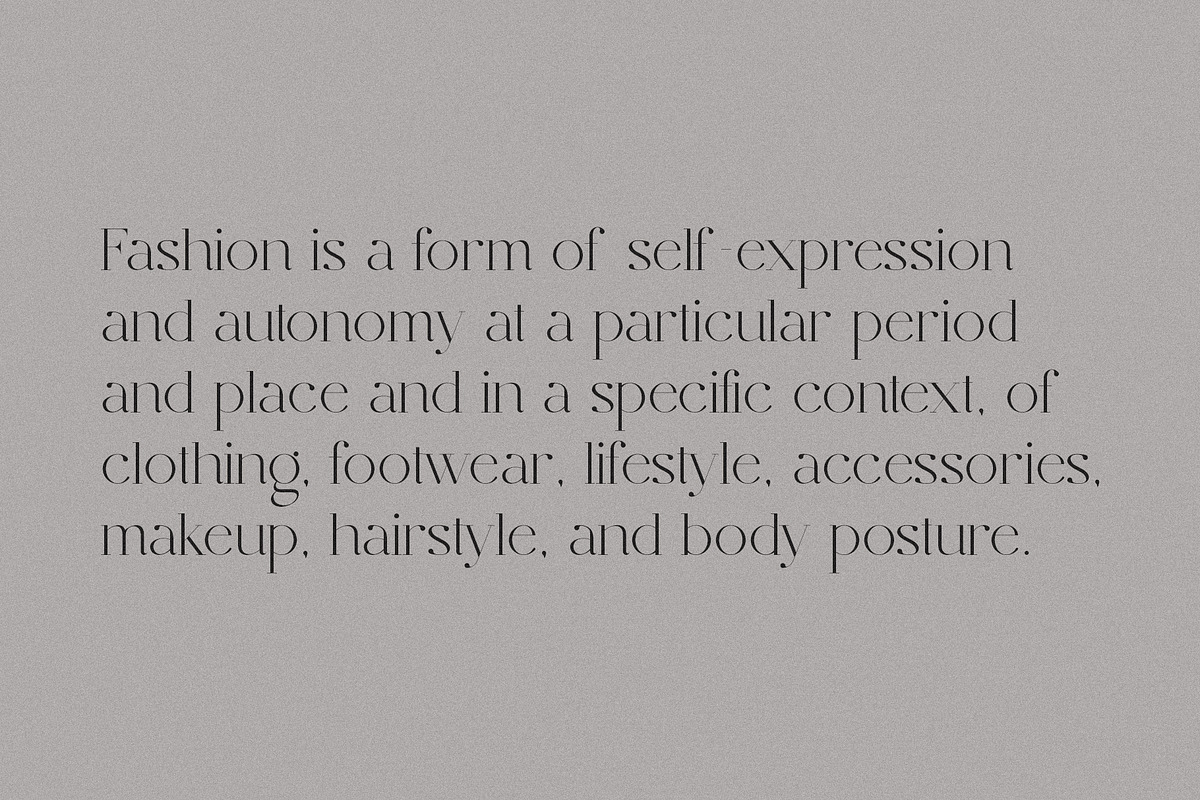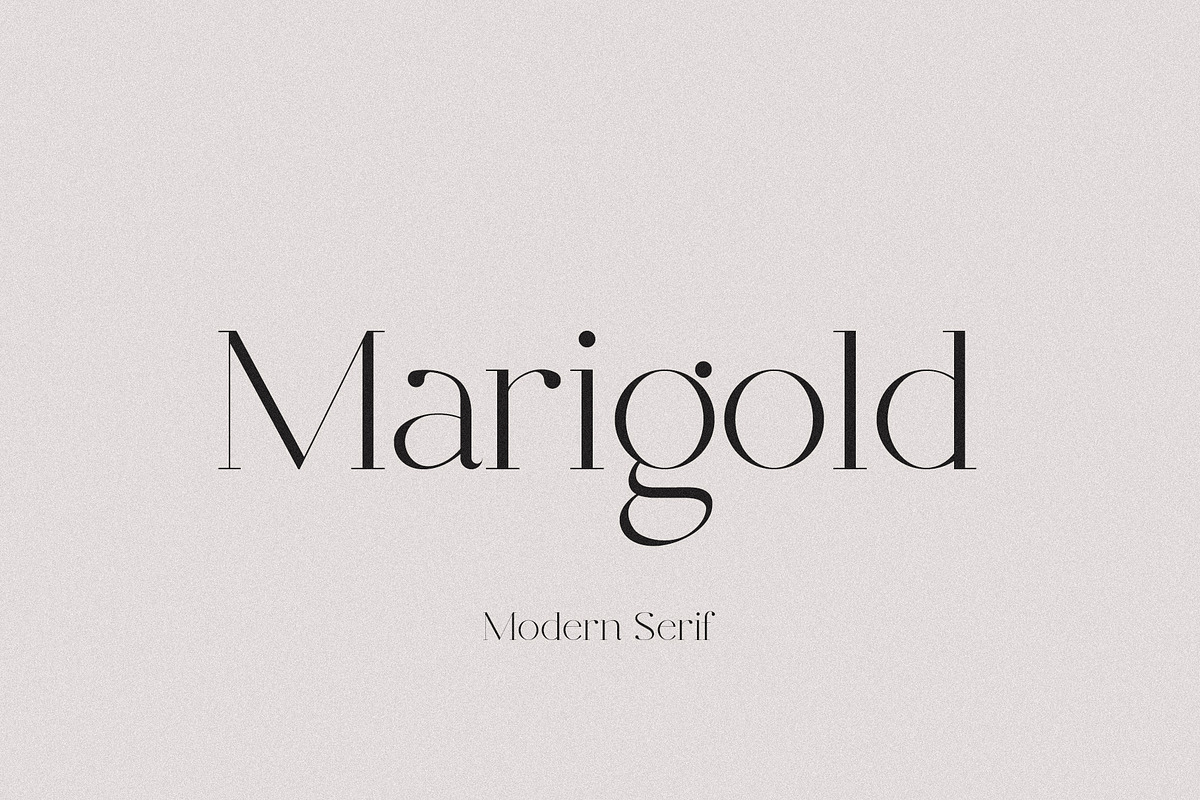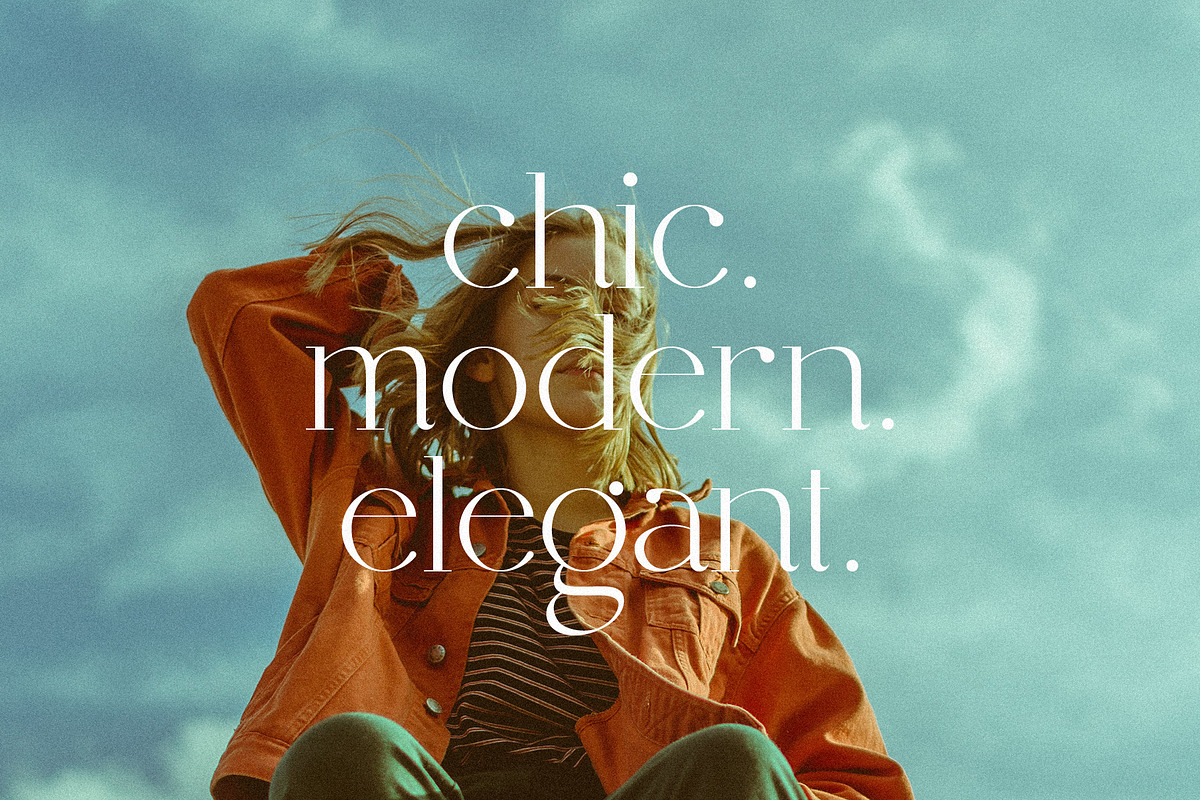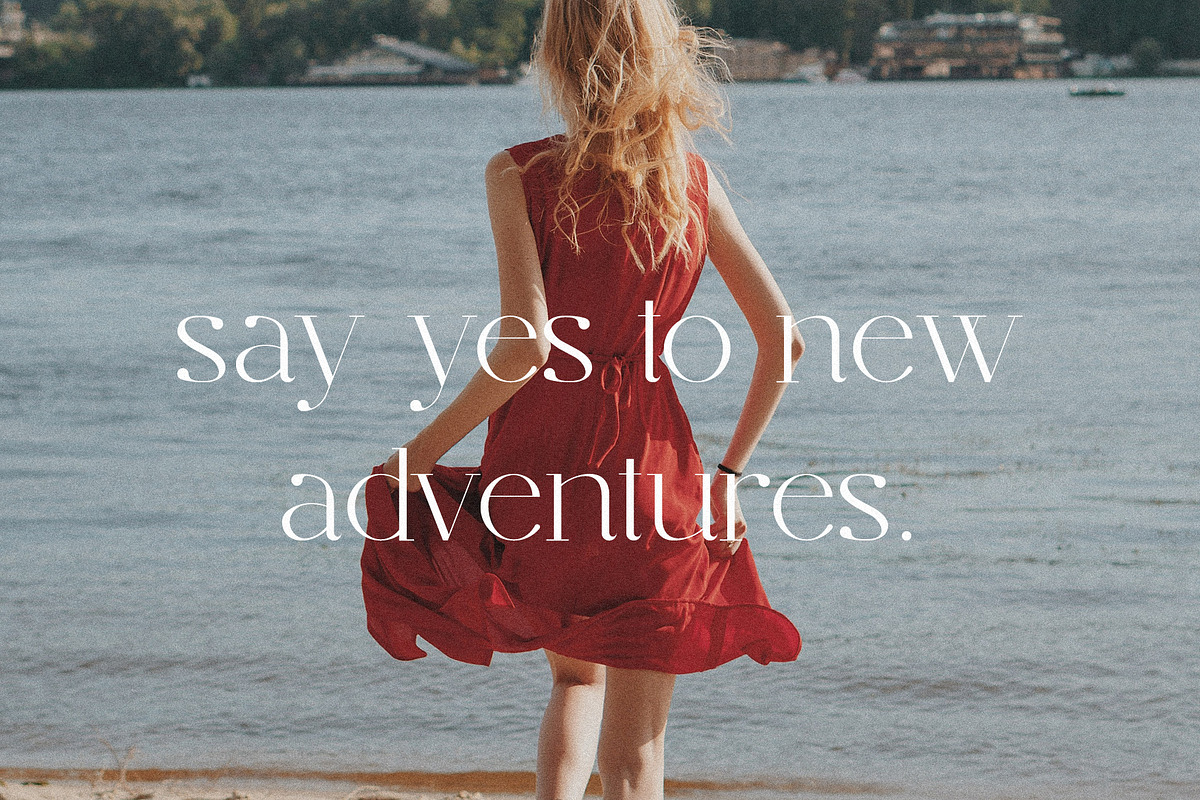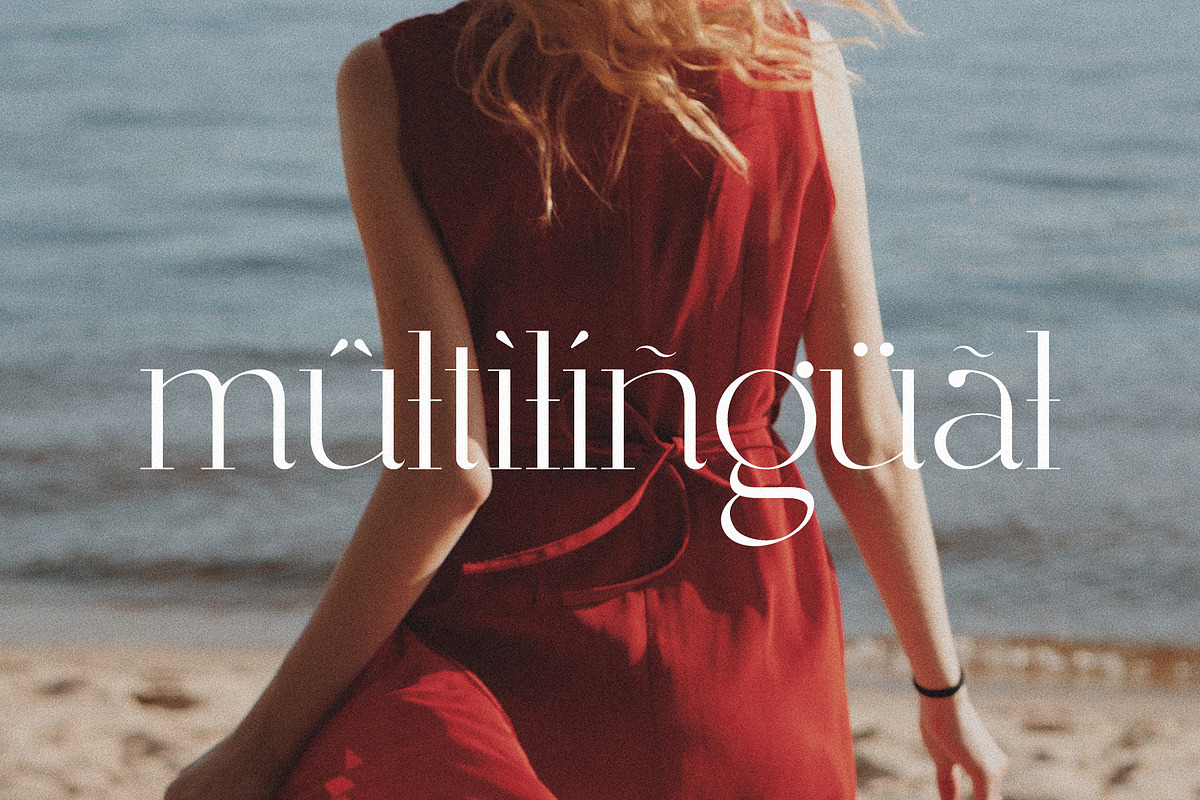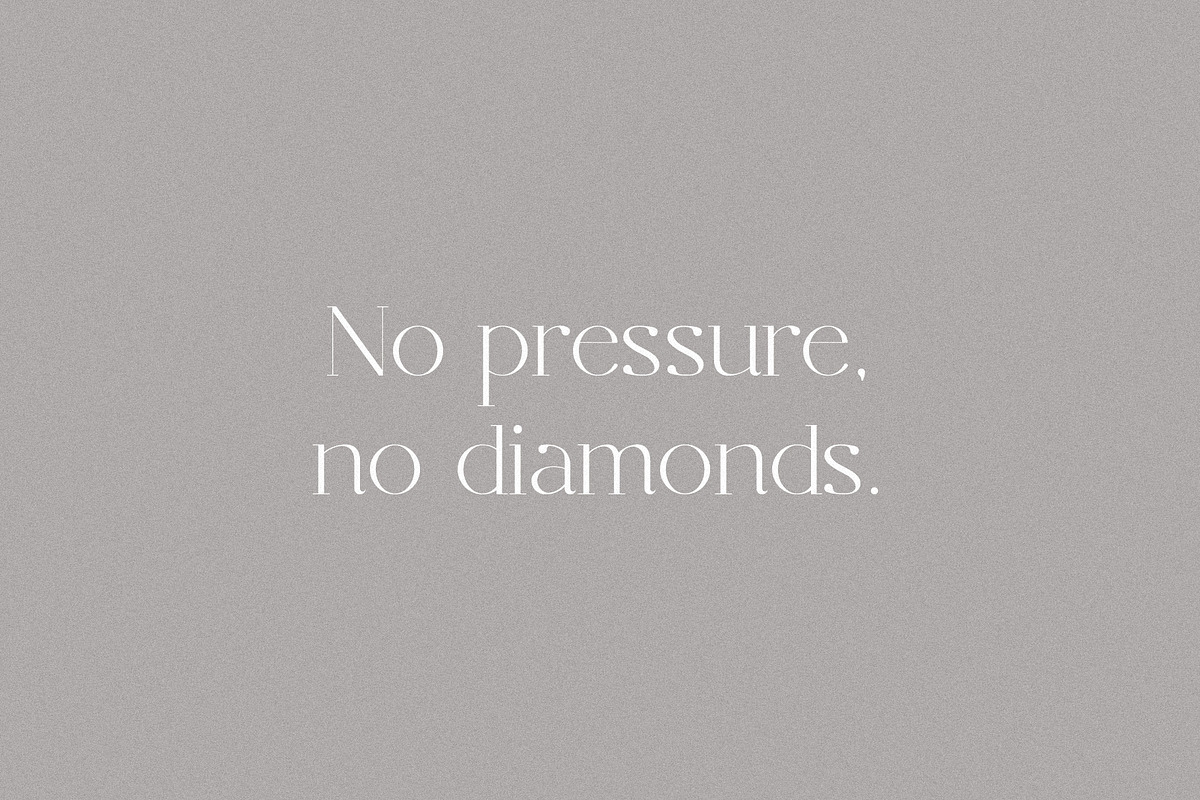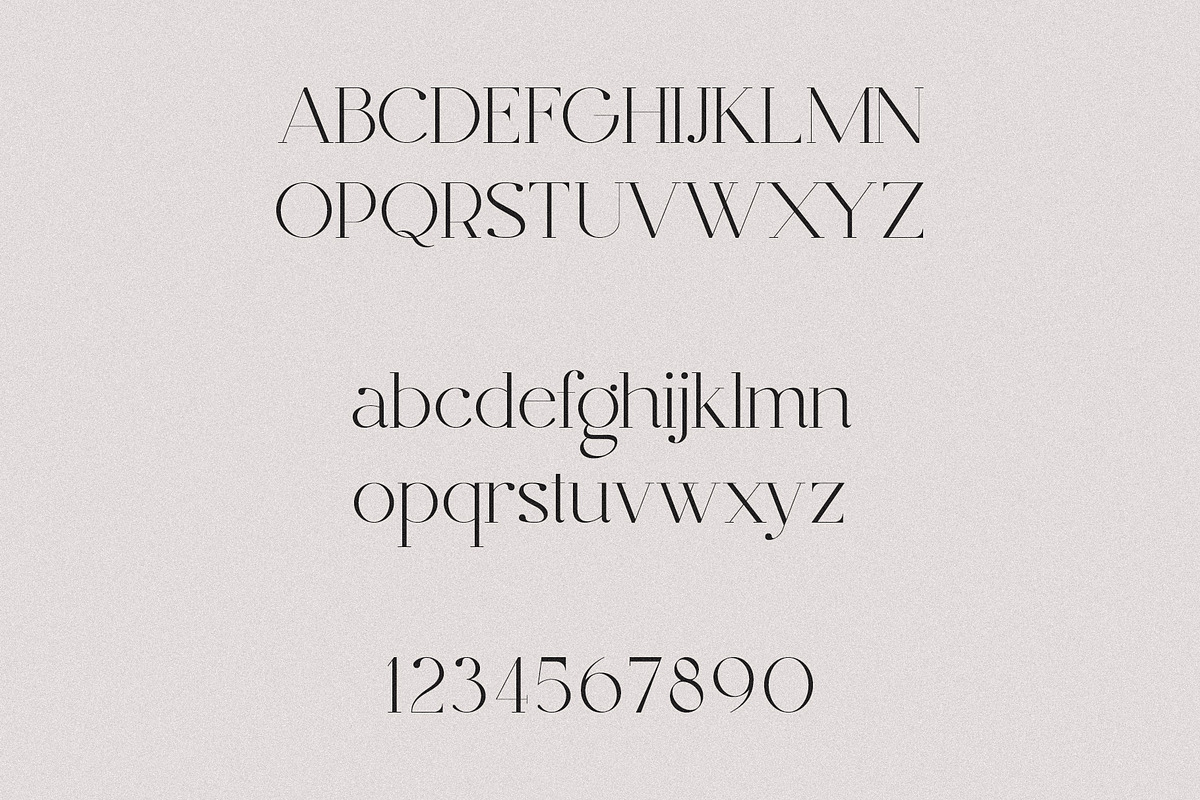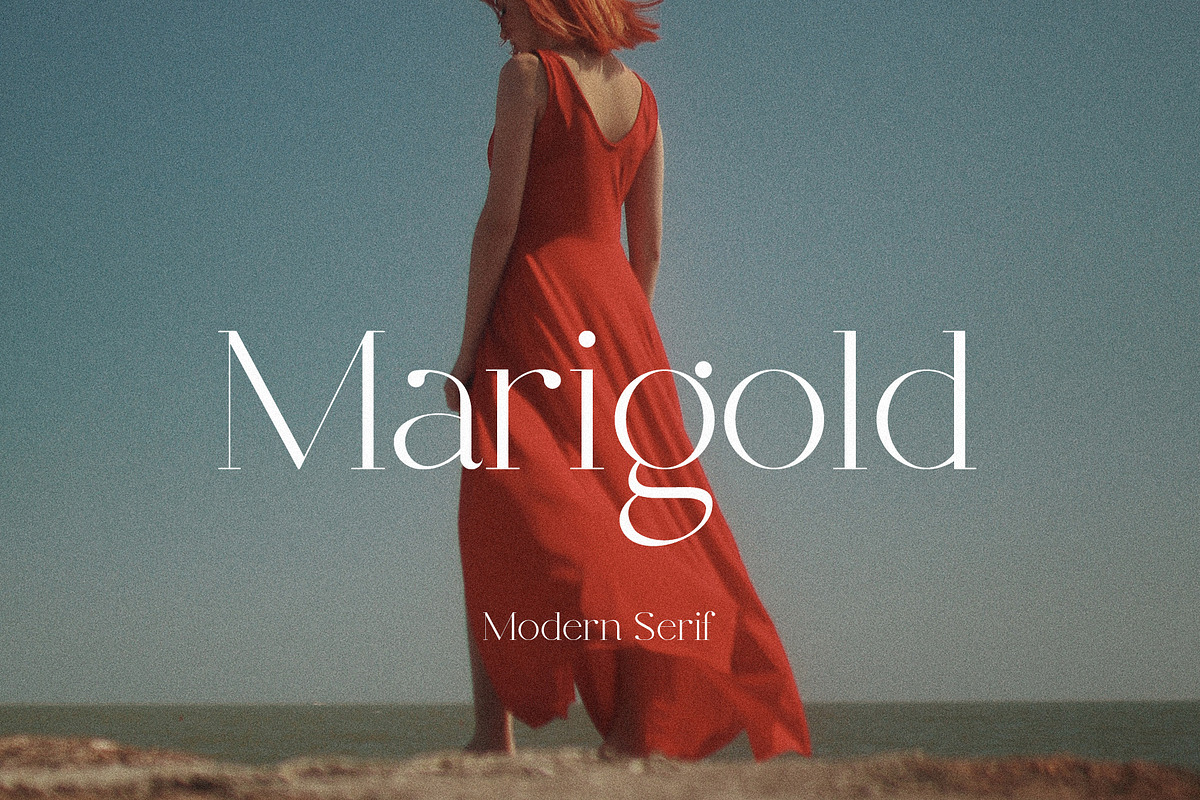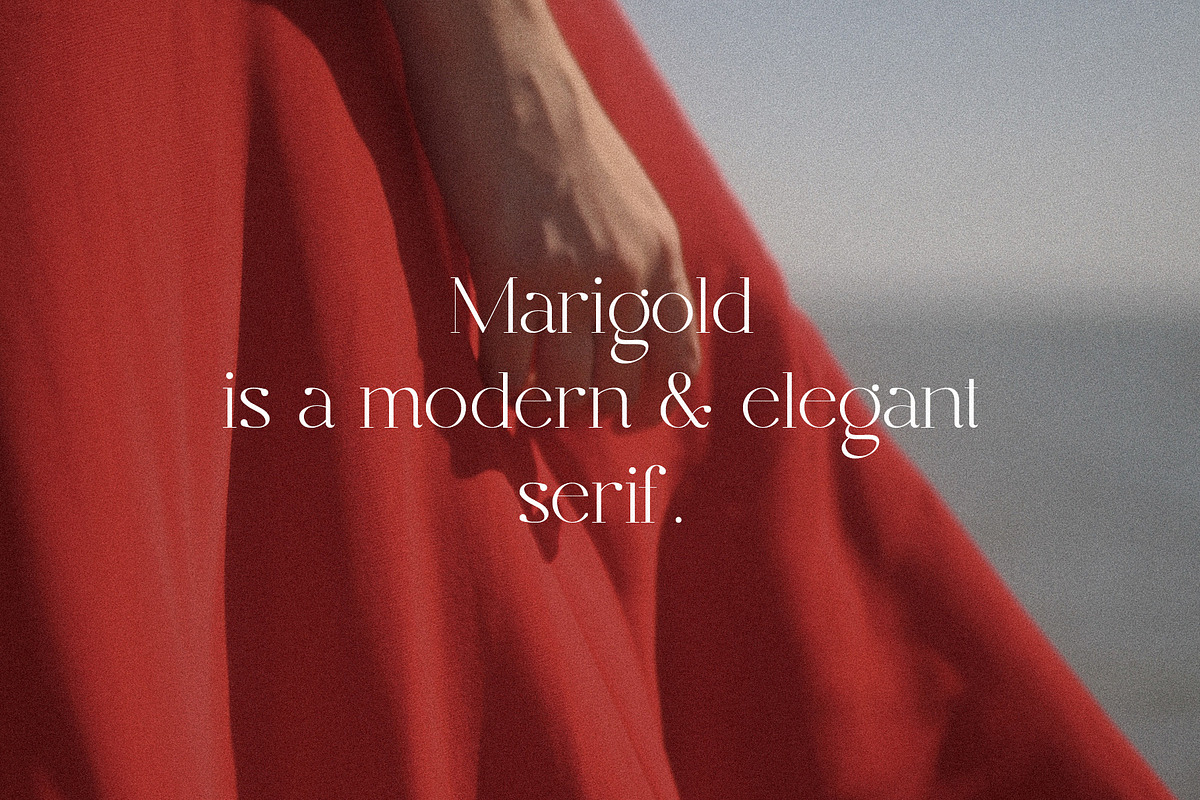
Marigold - Modern Serif
Marigold is a modern & elegant serif. Marigold has been designed for magazines headers, logos, any other modern & elegant projects and many more.